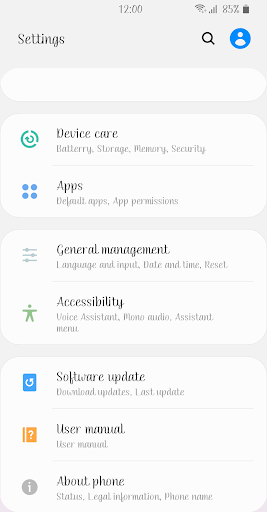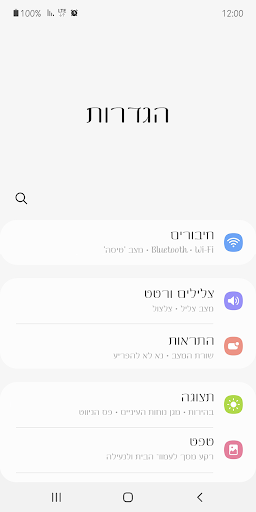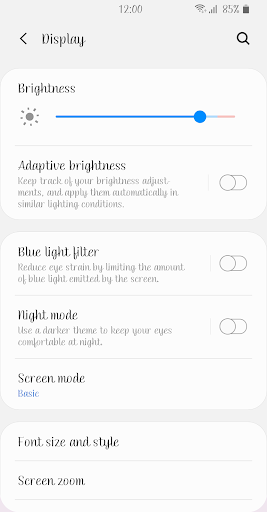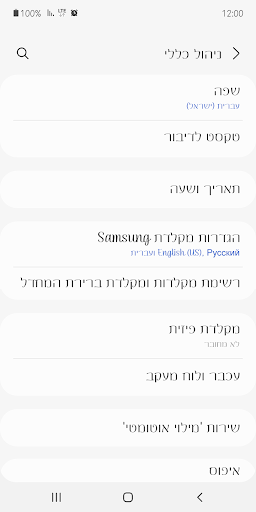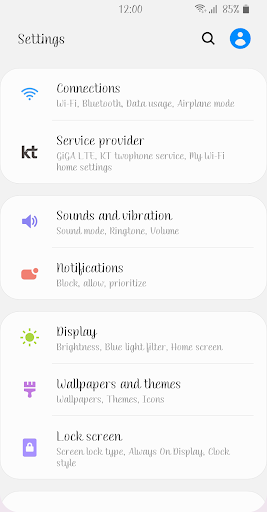
ZF Seraphic™ Hebrew Flipfont
It is a script-style font that feels serious.
You can see the change in thickness according to the movement of the stroke, and the strokes that follow naturally give a comfortable impression.
When I saw you a seraphic smile, I was happy as if I had the whole world.
I want to spread the wings of pure white love and fly into your heart.
I want to spend the rest of my life with you in a place full of love.